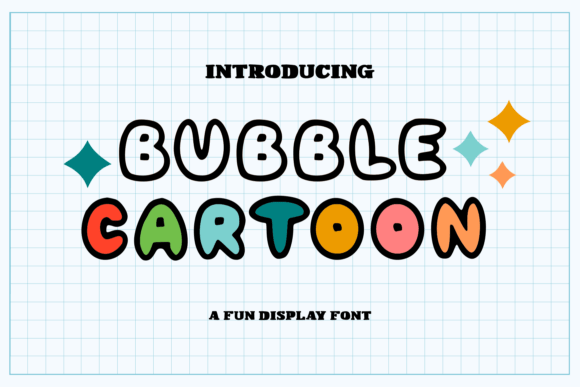
Bring Your Ideas to Life with Bubble Cartoon Font
Have you ever sat down with a blank piece of paper, a spark of creativity, and a world of possibilities? You start brainstorming, sketching out ideas, and before you know it, your imagination is running wild. This is the moment when the right font can make all the difference. It’s the moment when you stumble upon the perfect Bubble Cartoon Font – a fun and lively font that bursts with personality!
Designed to add a cheerful, cartoonish vibe to your designs, the Bubble Cartoon Font is perfect for kids’ projects, comics, posters, party invites, and more. Its round, playful letters and bold style make it a valuable addition to any designer’s toolkit. Whether you’re working on a project for a client or creating something just for fun, the Bubble Cartoon Font is sure to grab attention and spread smiles.
Bubble Cartoon Font Key Features
- Unique Characteristics: The font features playful, rounded shapes and exaggerated lines, making it ideal for creating whimsical and child-friendly designs.
- Font Style: Bubble Cartoon Font is a sans-serif font with a mix of bold and light weights, offering flexibility for various design applications.
Bubble Cartoon Font Review
The Bubble Cartoon Font is a fun, whimsical font that can add a playful touch to any design project. ✨ One of the things that works well in this font is its ability to create a sense of nostalgia and innocence. It’s perfect for projects that require a lighthearted, childlike feel.
- Customizability: The font offers a range of variations, including bold and italic styles, which can be useful for creating visual hierarchy and emphasis.
- Playfulness: The font’s cartoon-like aesthetic can add a touch of humor and personality to designs.
- Scalability: The font is clear and legible even at smaller sizes, making it suitable for a range of applications.
However, there are some limitations to consider: ⚠️ The font’s design can be a bit too playful for some projects, and may not be suitable for more serious or formal designs. Additionally, the font may not be as versatile as some other options, and may not work well in certain color schemes or backgrounds.
Overall, I think the Bubble Cartoon Font is a great choice for projects that require a playful, whimsical feel. While it may not be the best option for every design project, it’s a fun and effective choice for the right application.
Tips: Use the Bubble Cartoon Font to create playful and eye-catching headlines, and pair it with other fonts for a balanced look.
Tips: Use the Bubble Cartoon Font to create custom illustrations, icons, or graphics with a playful and cartoonish feel.
Tips: Use the Bubble Cartoon Font to add a playful touch to presentations, reports, or documents, and to highlight important information or create visual interest.
The Bubble Cartoon Font is ideal for:
- Playful advertisements
- Infographics and visualizations
- Cartoon-style animations and videos
Tips: Experiment with different font sizes, colors, and combinations to achieve the desired effect.